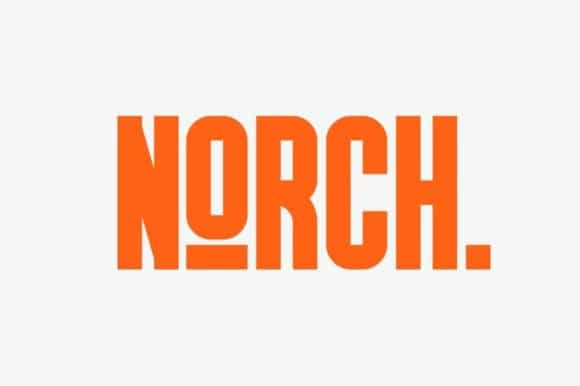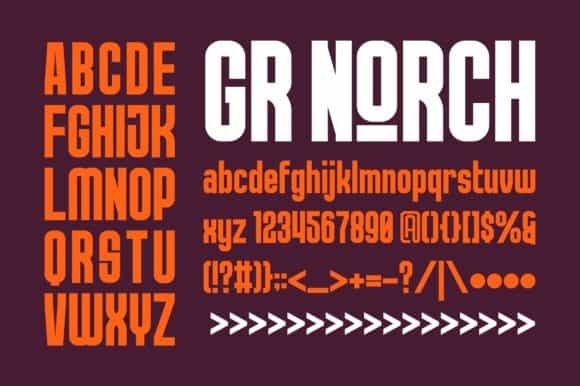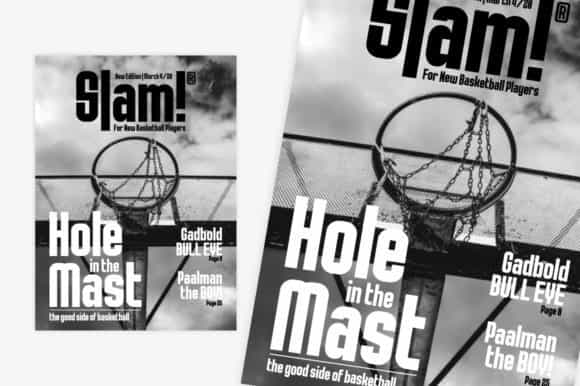
Norch is a plain and informal sans serif font with an absolutely neat look. This typeface will be very impressive both in formal and casual designs thanks to its neat and beautiful arrangement of letters.